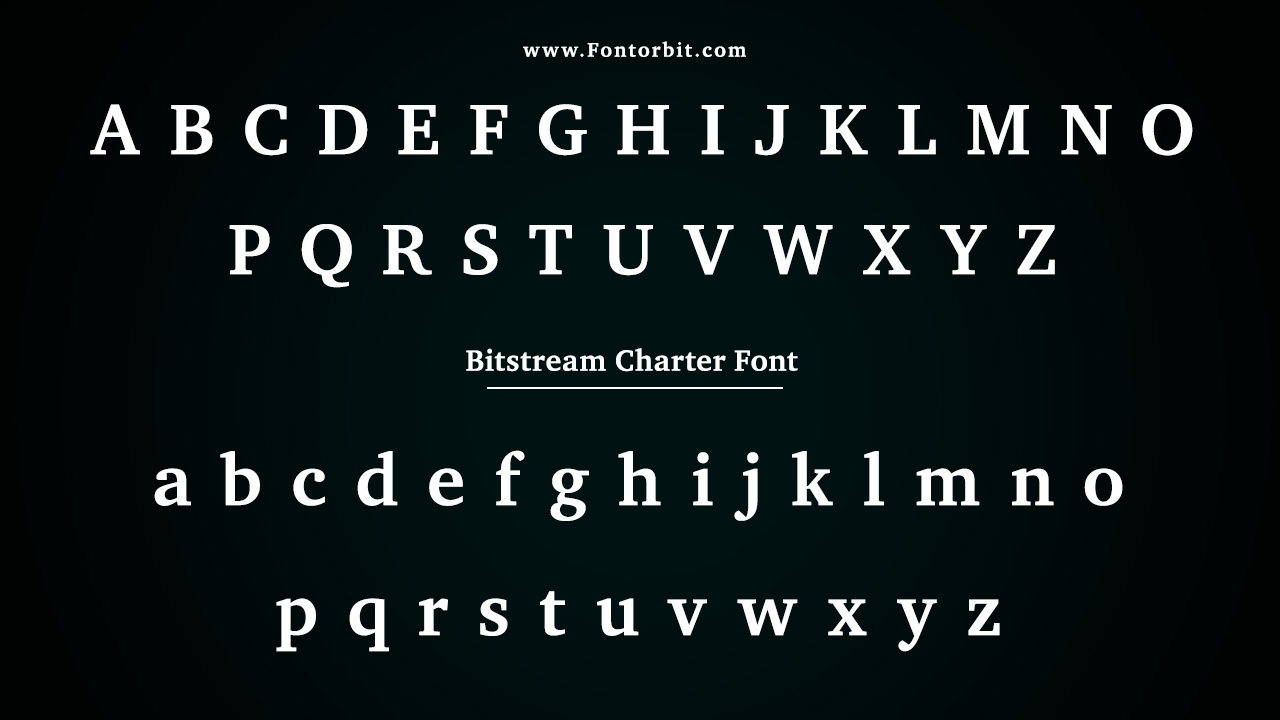
Bitstream Charter is a serif typeface designed by the renowned typographer Matthew Carter in 1987. Published by Bitstream Inc., it draws inspiration from Pierre-Simon Fournier’s 18th-century designs and is categorized as both a transitional serif and slab-serif typeface.
Originally created to meet the demands of low-resolution printing technology, Charter continues to thrive as a versatile, strong, and legible design for modern use.
Bitstream Charter Font Family Includes
The Bitstream Charter typeface is available in a versatile family of four key styles, each optimized for various uses, from print to digital.
- Charter Regular
- Charter Italic
- Charter Bold
- Charter Bold Italic
This family offers flexibility, allowing designers to create hierarchical designs using different weights and styles, making it a popular choice for print and screen.
Notable Uses Of Bitstream Charter
Bitstream Charter has been widely used in various design contexts due to its robust and legible design. Originally created for low-resolution printers, it remains a popular choice for both print and digital media. Below are some notable uses:
- Academic Publishing
- Corporate Branding
- Web Typography
- Book Publishing
Bitstream Charter is an excellent choice for:
- Long-form print projects like books and magazines
- Corporate communications requiring legibility at all sizes
- Academic and research papers where clarity and precision are essential
- Web design for modern, elegant typography with excellent screen readability
Bitstream Charter remains a classic font, blending historical design elements with modern technological requirements. Its flexibility in both print and digital formats makes it a go-to choice for designers looking for a strong and legible serif typeface. Whether you’re creating a book, a research paper, or a web page, Bitstream Charter offers a reliable and professional solution.
3.What Makes Bitstream Charter Unique?
It was designed for low-resolution printers and optimized for clarity and economy in its structure.
4.Is Bitstream Charter A Transitional Or Slab-Serif?
It is classified as both, with characteristics of transitional serif and slab-serif styles.
5.Can Bitstream Charter Be Used On Websites?
Yes, it is a popular web font due to its screen readability.
6.Are There Italic And Bold Versions Available?
Yes, the Bitstream Charter family includes regular, italic, bold, and bold italic styles.
7.What Is Charis SIL?
Charis SIL is an open-source derivative of Bitstream Charter, designed for use in linguistic texts.